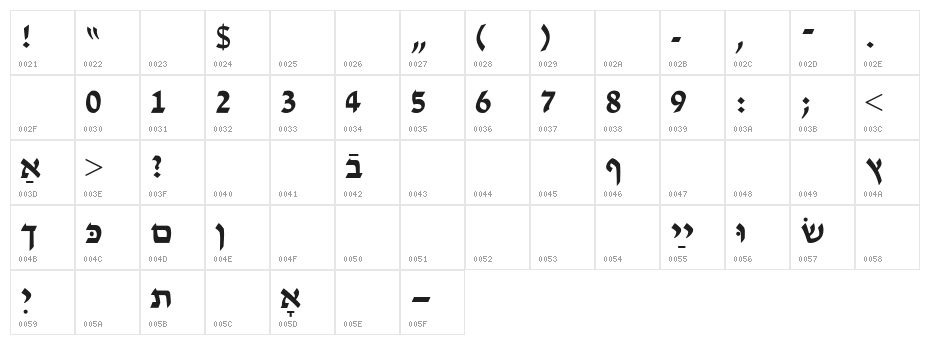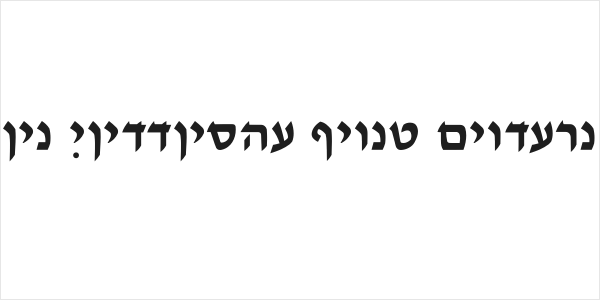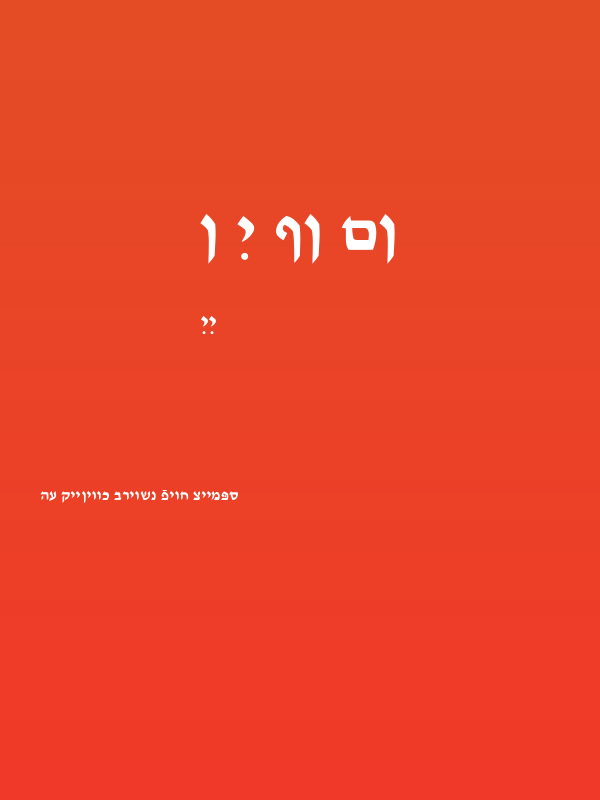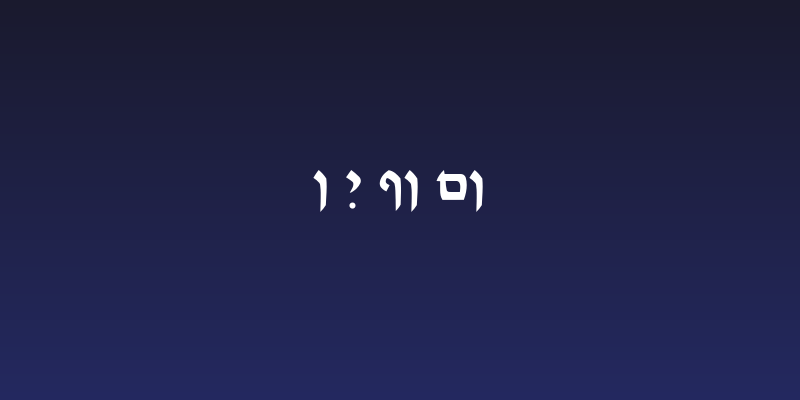
Ain Yiddishe Font Modern Description
This font features a modern interpretation of traditional Hebrew script, characterized by bold, angular strokes and a strong presence. The letters are distinct and easily readable, with a contemporary twist that adds a unique flair. The numerals and special characters maintain the same boldness, ensuring consistency across all text elements. The design is both functional and stylish, making it suitable for a variety of applications where a modern yet traditional aesthetic is desired.
| Use Case | Headlines, Logos, Signage |
| Proposed Projects | Ideal for branding, signage, posters, and any project requiring a modern Hebrew aesthetic. |